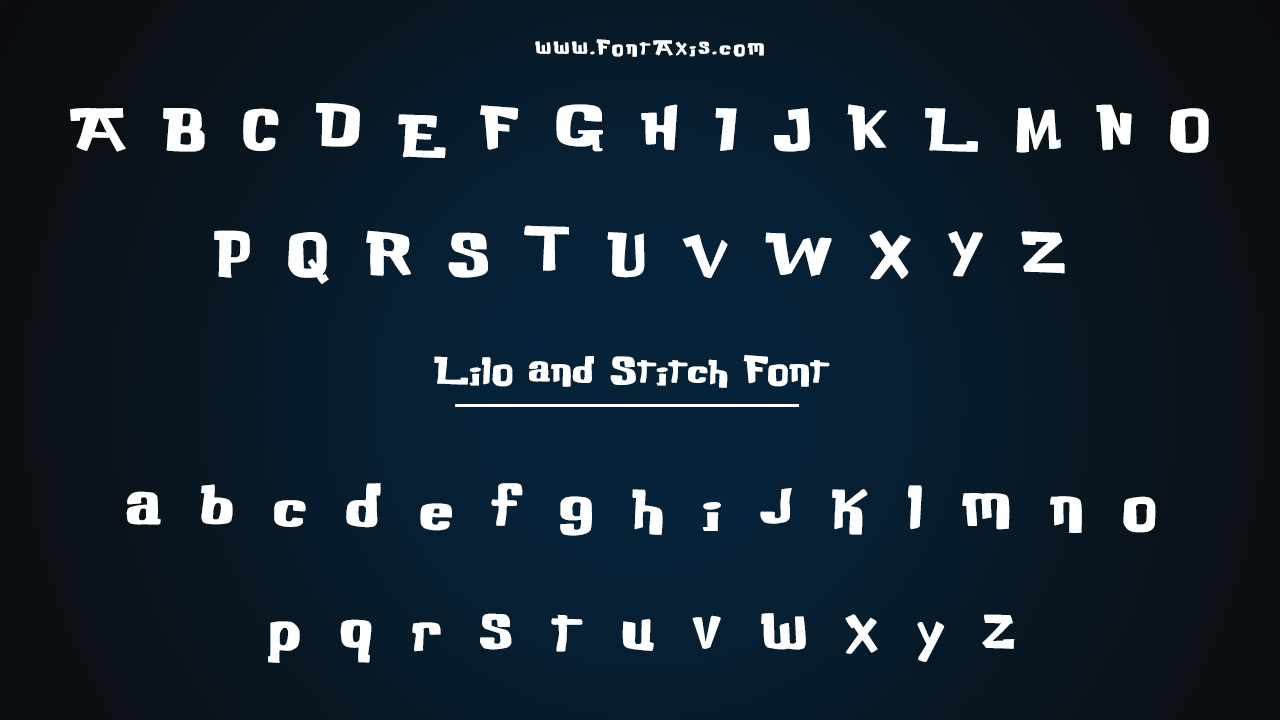
Lilo and Stitch Font is a playful typeface inspired by the logo of Disney’s 2002 animated movie Lilo & Stitch. Designed to reflect the fun, quirky style of the film, this font is a fan favorite among designers.
The Buka Bird Font, created by Steve Ferrera, closely replicates the lettering in the movie’s logo. Known for its casual and cartoonish style, it’s perfect for personal and themed design projects.
The Buka Bird Font comes in a single style with:
- Uppercase and lowercase letters
- Numerals
- Basic punctuation marks
Features Of Lilo And Stitch Font
- Style: Hand-drawn, Bold, Playful
- Design Elements: Irregular, organic strokes evoke a tropical, island vibe.
- Inspiration: Hawaiian culture and the adventurous spirit of the movie.
Where Lilo and Stitch Font Is In Use
The font is widely used in:
- Movie-inspired logo designs (e.g., Walt Disney Pictures themes)
- Cricut Design Space for crafting stickers and posters
- Banner and brochure layouts
- Poster advertising and merchandise like the Stitch Bundle
- Themed text graphics for websites and emails
Pair the Lilo and Stitch Font with:
- Arial Rounded MT Bold for a clean contrast
- Comic Sans MS for casual designs
- Pacifico for a whimsical look
Based on Disney’s iconic movie logo, the Lilo and Stitch Font offers a fun, cartoonish style perfect for personal projects. Its playful design, created by Steve Ferrera, is widely used in crafting, logo design, and themed graphics. While free for personal use, the font adds a whimsical touch to any creative endeavor. Overall, it’s a must-have for Disney fans and designers alike.
This font contains 92 unique glyphs, which include all uppercase and lowercase letters, numbers, and a selection of punctuation marks. While it provides essential character coverage, it may lack extensive language support or decorative alternatives, making it best suited for simpler design needs.
No, the Buka Bird Font is available in a single weight. This means it doesn’t offer bold, italic, or light variations. While this limits typographic flexibility, its singular style is highly effective for adding a fun and dynamic aesthetic to your designs, making it a standout choice for vibrant and whimsical projects.
6.What Makes This Font Unique?
The font’s design captures the playful, hand-drawn aesthetic of Disney’s Lilo & Stitch logo, evoking a tropical and carefree feel. Its irregular strokes and casual look make it ideal for creating fun, vibrant designs that align with the movie’s spirit. It’s perfect for adding a touch of whimsy and charm to any creative project, especially those with a Hawaiian or Disney-inspired theme.